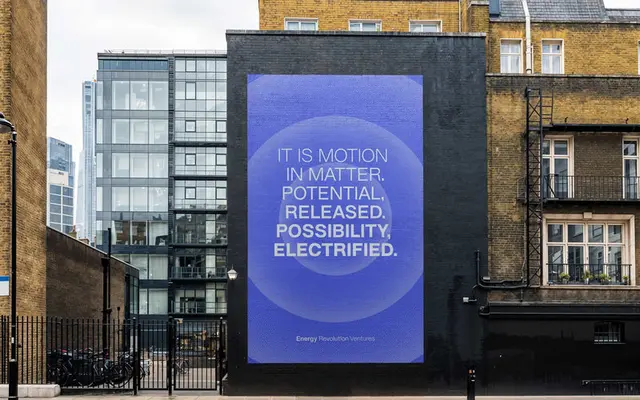
ALT Riviera
A London-made grotesque with six weights, italics and a monospaced cut, where deliberate tension in the letterforms keeps it from collapsing into anonymity.
Built on geometric logic but refusing to be rigidly sanitised, ALT Riviera introduces subtle irregularities in curves and joins that give the family a distinct character without veering into gimmickry. The R and G carry particular personality, and the proportions resist pure neutrality across both display and text settings. Over 600 glyphs cover Latin Extended A, partial Latin Extended B and Greek, with full italic and monospaced accompaniments across all six weights.
The foundry describes it as a contemporary grotesk that borrows from geometric logic without being fully geometric; its construction and character decisions place it firmly in the grotesque tradition with humanist inflections.